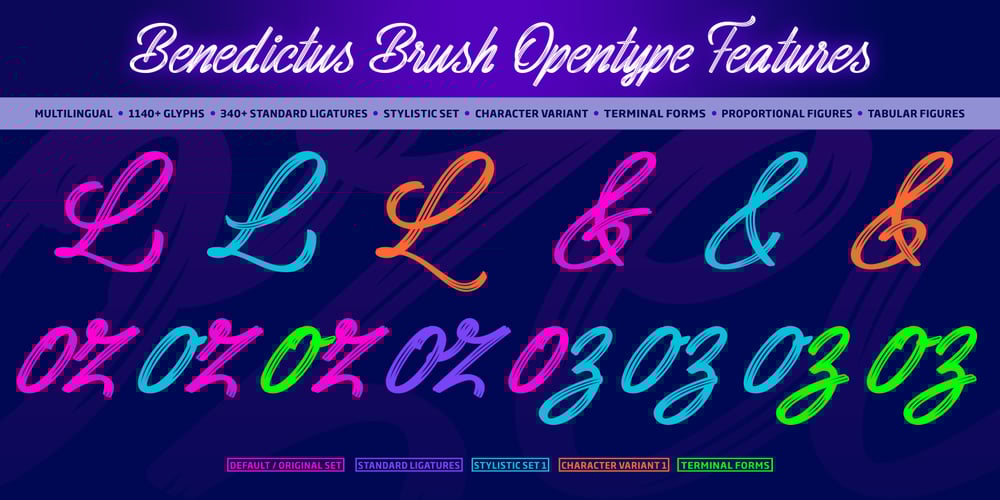
Benedictus Brush Font Family was designed by Benjamin Hodosi and published by Ben Hodosi. Benedictus Brush contains 7 styles and family package options. Benedictus Brush is a stylish, fresh new layered brush script font family. With lots of alternate characters (415+) and more than 340 realistically created standard ligatures. The letters are made with brush pen and scanned thereafter carefully drawn into vector format. Benedict Brush is a versatile multilungual font family and comes with several of OpenType features: – 340+ Standard Ligatures – Stylistic Set – Character Variant – Terminal Forms – Proportional Figures – Tabular Figures – More than 1140 Glyphs – Multilingual To make you more better eye-catching and colorful designs, Benedictus Brush is a layered font! There are 7 variants of Benedictus Brush, to add even more flexibility to your designs: Solid Base, Shine Solo, Shadow Solo, Combo One, Combo Two, Combo Three and Complex. These are features that offers virtually endless variation. Enjoy!